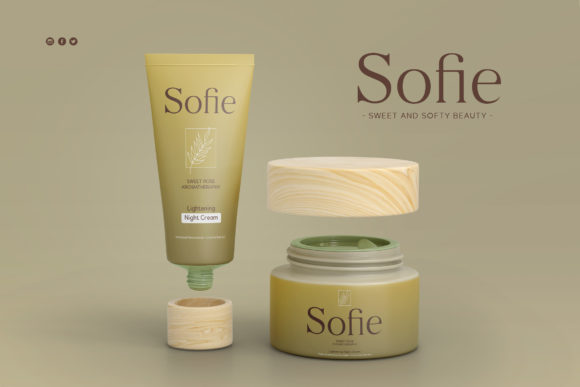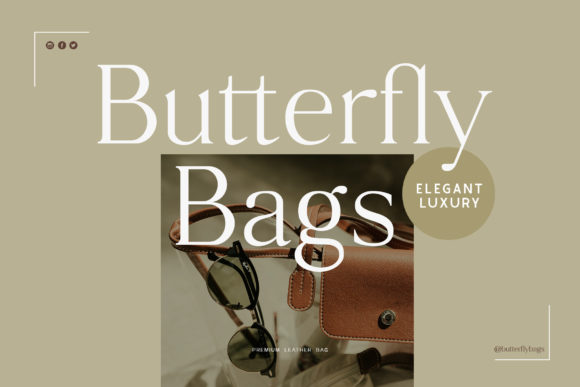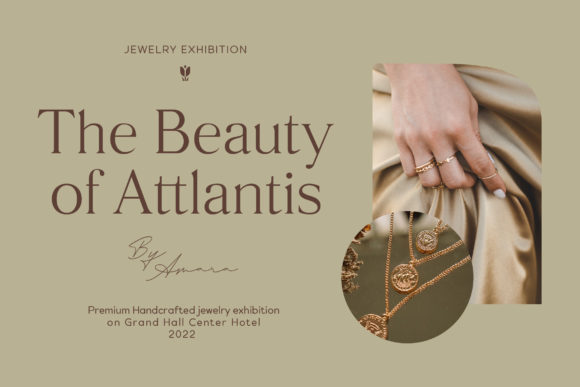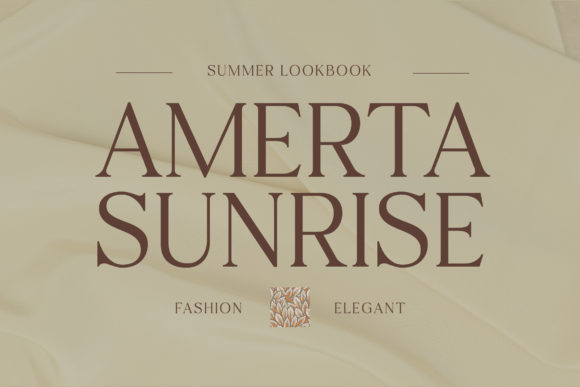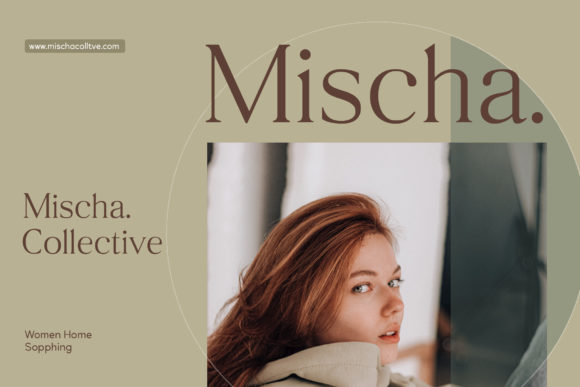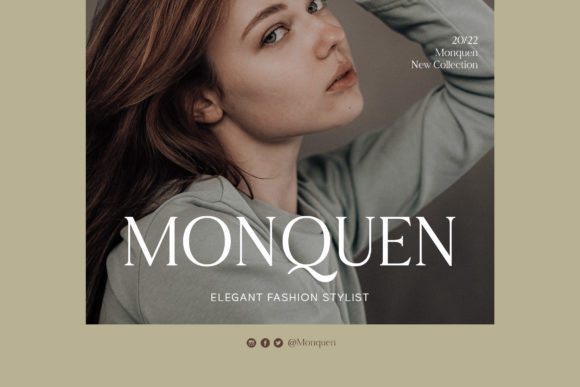
Introducing Glowgirl Font: Elevate Your Designs with Elegance and Authenticity
Are you a designer or crafter looking for a font that adds a touch of sophistication and coolness to your projects? Look no further than Glowgirl Font, an elegant and authentic serif font that is sure to elevate your designs to the next level. In this article, we’ll dive into the features and benefits of Glowgirl Font, and explore its endless possibilities for various design applications.
What is Glowgirl Font?
Glowgirl Font is a beautifully crafted serif font that exudes elegance and authenticity. Its classic design makes it perfect for a wide range of projects, from luxury branding and advertising to packaging, magazines, and more. The font’s sleek lines, precise curves, and balanced proportions create a stunning visual effect that is sure to capture the attention of your audience.
Key Features of Glowgirl Font
- Elegant and Authentic Design: Glowgirl Font boasts a sophisticated serif design that adds a touch of luxury to any project.
- Versatile: This font is suitable for various design applications, including branding, advertising, packaging, magazines, and more.
- Highly Readable: Glowgirl Font is designed to be highly readable, making it perfect for body text, headlines, and titles.
- Scalable: The font is optimized for use at various sizes, ensuring that it looks great whether it’s used for a billboard or a business card.
Benefits of Using Glowgirl Font
So, why choose Glowgirl Font for your designs? Here are just a few benefits of using this amazing font:
- Adds a Touch of Sophistication: Glowgirl Font instantly elevates your designs, adding a level of sophistication and elegance that sets them apart.
- Enhances Brand Identity: With its unique and authentic design, Glowgirl Font can help you create a strong brand identity that resonates with your target audience.
- Boosts Readability: The font’s high readability ensures that your message gets across clearly, whether it’s used for body text or headlines.
- Endless Possibilities: Glowgirl Font can be used for a wide range of projects, from digital designs to print materials, and everything in between.
Exploring the Endless Possibilities of Glowgirl Font
Glowgirl Font is an incredibly versatile font that can be used in various design applications. Here are some ideas to get you started:
- Luxury Branding: Use Glowgirl Font to create stunning luxury brand identities that exude elegance and sophistication.
- Advertising and Marketing: The font’s sleek design makes it perfect for advertising and marketing materials, such as brochures, flyers, and posters.
- Packaging Design: Add a touch of luxury to your packaging designs with Glowgirl Font, perfect for high-end products and premium brands.
- Magazine and Editorial Design: Use Glowgirl Font to create stunning magazine and editorial designs that showcase your content in style.
- Digital Designs: The font is also perfect for digital designs, including website headers, social media graphics, and more.